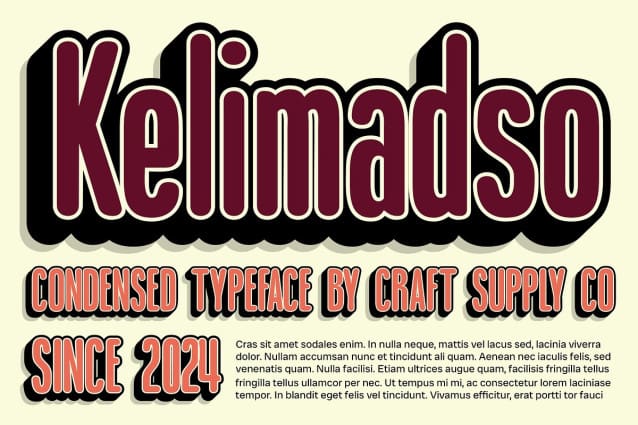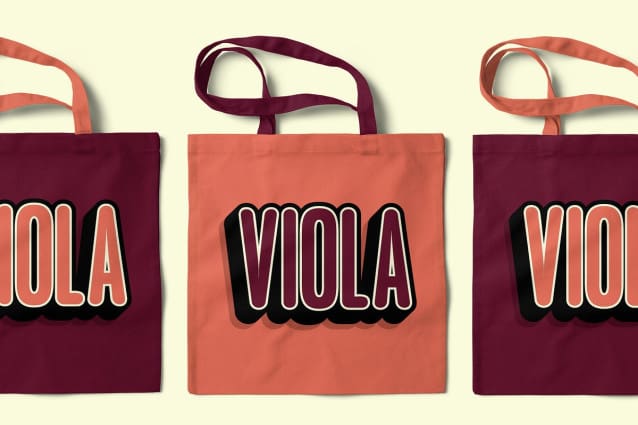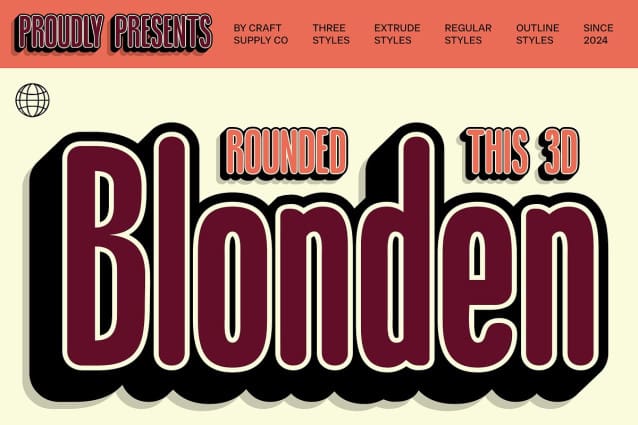
Blonden Rounded 3D Font
Blonden Rounded 3D is a modern sans-serif typeface that merges a condensed, rounded form with an engaging three-dimensional effect. The slim, rounded letters offer a sleek and space-efficient design, perfect for fitting more content into limited spaces while maintaining a soft and approachable appearance. The 3D effect adds depth and dimension, making the text stand out with a dynamic, eye-catching presence.
Visual Appeal and Enhanced Readability The rounded edges of Blonden Rounded 3D introduce a sense of visual softness and warmth, while the 3D effect enhances the font’s depth, creating a bold and dynamic look. This combination of features ensures that the text is both aesthetically pleasing and highly readable, providing an elegant and engaging typographic solution for various design needs.
Perfect for Logos, Posters, and Promotional Materials Ideal for modern applications that require a striking visual impact, Blonden Rounded 3D is well-suited for logos, posters, and promotional materials. Its blend of rounded elegance and dimensional flair makes it a versatile choice for creating standout designs that capture attention and convey a contemporary, stylish aesthetic. Whether for branding or marketing, this font delivers a unique and memorable impression.